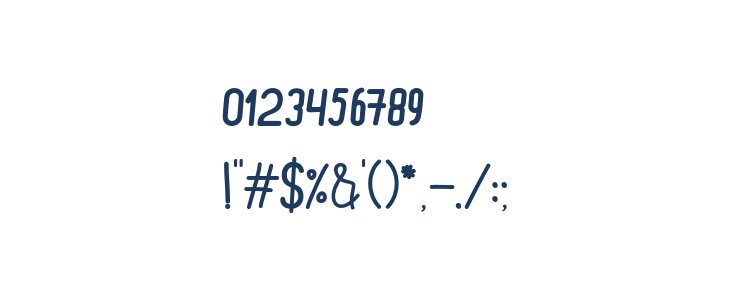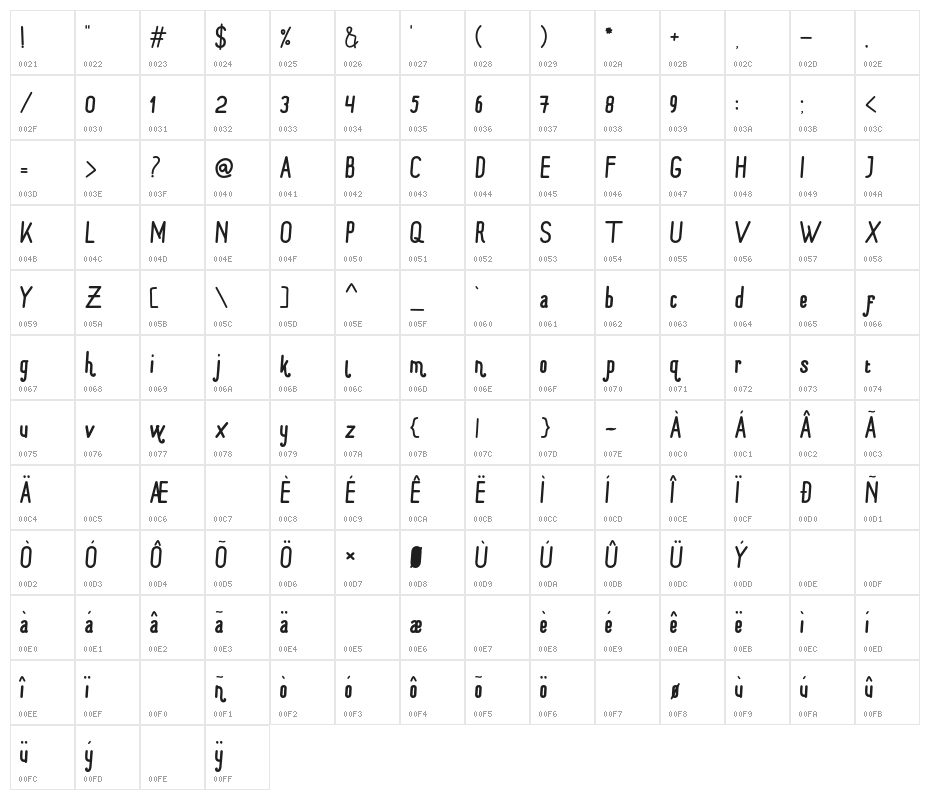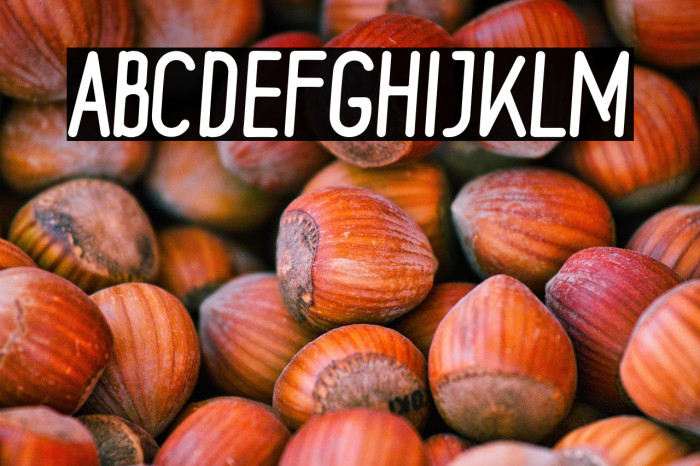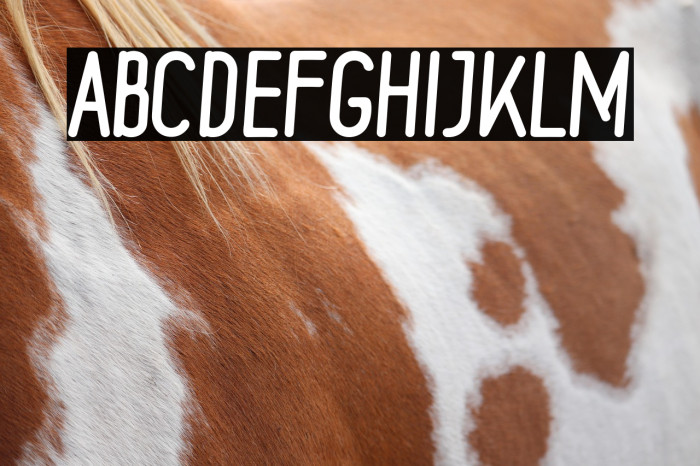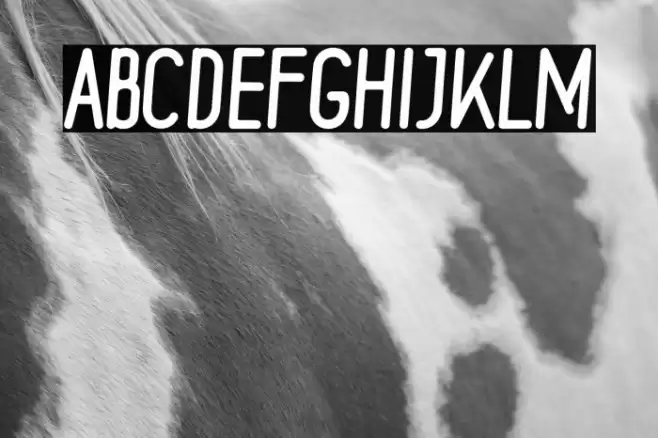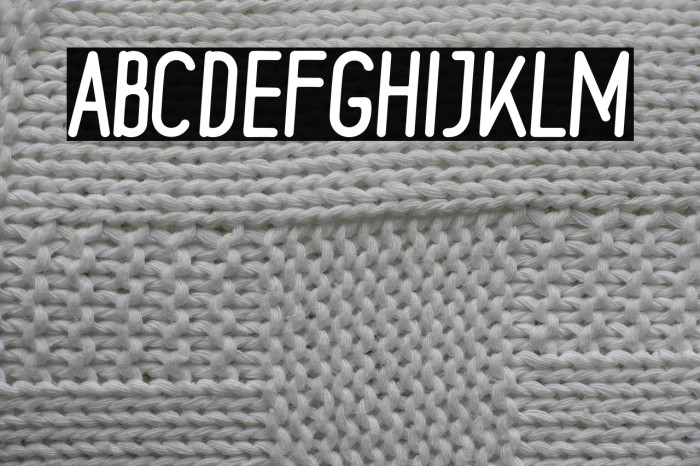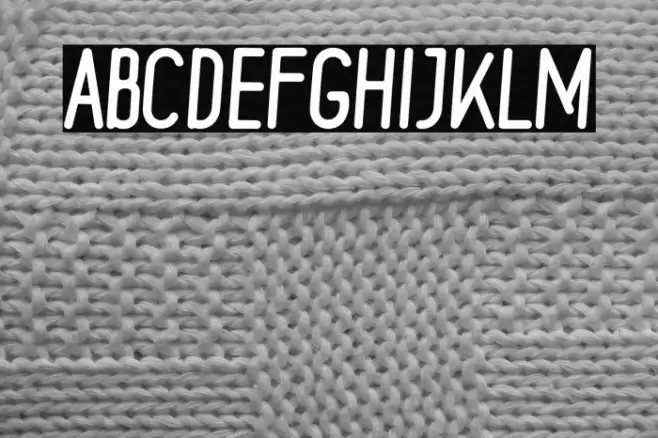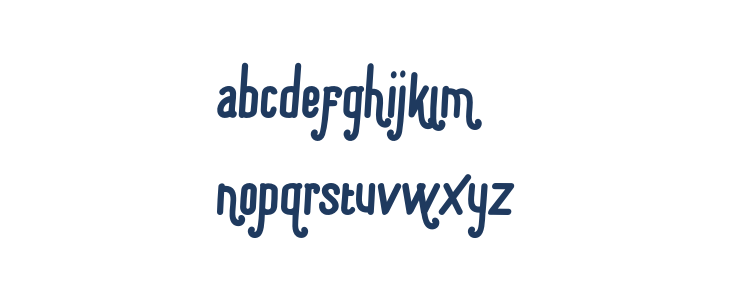
Moons Font
Moons Description
This font features a playful and modern design with a handwritten feel. The uppercase letters are slightly elongated with rounded edges, giving them a friendly and approachable appearance. The lowercase letters maintain a consistent style, with some characters like 'g' and 'j' having unique, playful tails. The numbers are clear and easy to read, matching the overall style of the letters. Special characters are well-integrated, maintaining the font's cohesive look. This font's style is versatile, suitable for various creative projects.
| Proposed Projects | Ideal for children's books, casual branding, playful invitations, and creative social media graphics. |